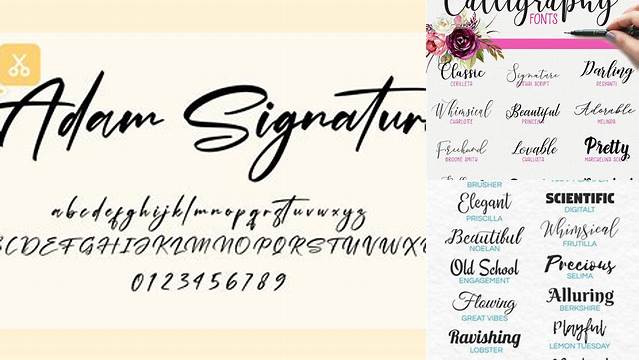
Calligraphy Styles: Generate Fonts With Ease!
H2 Understanding Calligraphy Styles
Calligraphy, guys, is more than just fancy writing; it's an art form with a rich history and diverse styles. Understanding these styles is the first step in appreciating and creating beautiful calligraphic works. Each style has its unique characteristics, from the slant of the letters to the thickness of the strokes. This section will explore some of the most popular and influential calligraphy styles. For example, think about Copperplate, known for its elegant, flowing lines, or Gothic, with its bold, dramatic strokes. Knowing the nuances of each style allows you to choose the perfect one for your project, whether it's wedding invitations, certificates, or artistic expressions. It also helps you understand the foundations upon which calligraphy fonts generators are built. Understanding the subtle differences between each style will make using a calligraphy font generator much easier to manage. Different calligraphy styles evoke different feelings and emotions. The formal, precise strokes of Engrosser's Script convey elegance and tradition, while the playful, irregular lines of brush lettering can feel modern and whimsical. Consider the message you want to convey when selecting a style. Are you aiming for classic sophistication, or do you want something more contemporary and approachable? Ultimately, the best style is the one that resonates with you and effectively communicates your intended message. The principles of calligraphy remain constant, but their application in different styles creates a wide spectrum of artistic possibilities. By studying these styles, you'll not only enhance your appreciation for the art form but also gain the skills to create your own unique variations. Experiment with different styles and techniques, and don't be afraid to break the rules and develop your personal flair.
H2 Exploring Copperplate Calligraphy
Copperplate calligraphy, a timeless and elegant script, is characterized by its graceful curves and consistent slant. Mastering this style requires precision and patience, but the results are truly rewarding. Copperplate originated in the 17th century and gained popularity due to its suitability for engraving on copper plates, hence the name. This style is particularly well-suited for formal occasions, such as wedding invitations, certificates, and diplomas. Its refined appearance exudes sophistication and tradition. When practicing Copperplate, pay close attention to the thin and thick strokes, which are achieved by varying the pressure on your pen. The downstrokes are thick, while the upstrokes are thin. Consistent slant and spacing are also crucial for achieving a polished look. Using high-quality ink and paper is essential for optimal results. Copperplate is not just about replicating the classic forms; it's about understanding the underlying principles of the script and applying them with your own personal touch. As you become more proficient, you can experiment with variations in letterforms and flourishes to create unique and personalized designs. So, whether you're a beginner or an experienced calligrapher, exploring Copperplate will undoubtedly enhance your skills and expand your artistic horizons. A calligraphy font generator can help by allowing quick previews of your desired word or phrase in a Copperplate style.
H2 Delving into Gothic Calligraphy
Gothic calligraphy, also known as Blackletter, is characterized by its bold, angular strokes and dramatic appearance. This style evokes a sense of history and grandeur, reminiscent of medieval manuscripts and illuminated texts. Gothic calligraphy requires a different approach than Copperplate, with a focus on precise angles and consistent letterforms. This style is also widely supported by calligraphy fonts generator. Understanding the historical context of Gothic calligraphy is essential for appreciating its unique aesthetic. It was the dominant script in Western Europe during the Middle Ages and was used for everything from religious texts to legal documents. When practicing Gothic calligraphy, pay close attention to the x-height, ascenders, and descenders. The x-height refers to the height of the main body of the letters, while the ascenders and descenders extend above and below the x-height, respectively. Maintaining consistent proportions is crucial for achieving a balanced and harmonious look. Experiment with different variations of Gothic script, such as Textura, Rotunda, and Fraktur, each with its own distinct characteristics. Gothic calligraphy is not just about replicating the historical forms; it's about interpreting them in your own unique way. As you become more proficient, you can incorporate decorative elements, such as illuminated initials and intricate borders, to create stunning and personalized designs. This will allow you to create designs that are not easily replicated by a calligraphy font generator.
H2 Mastering Italic Calligraphy
Italic calligraphy is a flowing and elegant script that is characterized by its slanted letterforms and rhythmic movement. Italic originated in the Renaissance as a more legible and efficient alternative to the formal scripts of the time. This style is particularly well-suited for everyday writing, as well as for more formal applications, such as invitations and announcements. When practicing Italic calligraphy, focus on maintaining a consistent slant and spacing between letters. The slant should be approximately 5 to 10 degrees, and the spacing should be even and harmonious. Use a broad-edged pen to create the characteristic thick and thin strokes of Italic. Experiment with different variations of Italic, such as Chancery Cursive and Humanist Italic, each with its own distinct characteristics. Italic calligraphy is not just about replicating the historical forms; it's about developing your own personal style and expression. As you become more proficient, you can incorporate flourishes and variations in letterforms to create unique and personalized designs. Imagine the possibilities that await you by mastering this style, even with a calligraphy font generator in your arsenal!
H2 Exploring Brush Lettering Techniques
Brush lettering is a modern and versatile style of calligraphy that utilizes brush pens to create expressive and dynamic letterforms. Unlike traditional calligraphy, which relies on precise pen angles and consistent strokes, brush lettering allows for greater freedom and creativity. This style is particularly popular for creating hand-lettered quotes, logos, and illustrations. When practicing brush lettering, experiment with different brush pens and techniques to achieve a variety of effects. Vary the pressure on your pen to create thick and thin strokes, and explore different lettering styles, such as bounce lettering and faux calligraphy. Brush lettering is not just about replicating the standard letterforms; it's about developing your own unique style and expression. As you become more proficient, you can incorporate color, shading, and other embellishments to create stunning and personalized designs. A calligraphy font generator can offer templates, but the true art is in the manual creation.
H2 Calligraphy Font Generators: An Overview
Calligraphy font generators are digital tools that allow you to create calligraphy-style text without the need for traditional pen and ink. These generators offer a wide range of fonts and styles, making it easy to create beautiful and unique designs. A calligraphy font generator simplifies the process, especially for those new to calligraphy. They can be used for a variety of purposes, such as creating invitations, logos, and social media graphics. While these tools can be incredibly useful, it's important to understand their limitations. They are not a substitute for learning traditional calligraphy techniques, but they can be a valuable resource for exploring different styles and experimenting with different designs. Many calligraphy font generators offer customization options, allowing you to adjust the size, color, and spacing of the letters. Some generators even allow you to upload your own fonts and create custom designs. When choosing a calligraphy font generator, consider your specific needs and preferences. Look for a generator that offers a wide range of fonts and styles, as well as customization options. Also, be sure to read reviews and compare prices before making a decision. With the right calligraphy font generator, you can create stunning and personalized designs in minutes.
H2 Benefits of Using a Calligraphy Font Generator
Using a calligraphy font generator offers numerous benefits, especially for those who are new to calligraphy or who need to create designs quickly. One of the main benefits is the ease of use. Calligraphy font generators are typically very user-friendly and require no prior experience. Simply type in your text, choose a font, and customize the design to your liking. Another benefit is the speed. With a calligraphy font generator, you can create beautiful and unique designs in minutes, saving you time and effort. Calligraphy font generators also offer a wide range of fonts and styles, giving you plenty of options to choose from. You can experiment with different styles and find the perfect one for your project. Additionally, many calligraphy font generators offer customization options, allowing you to adjust the size, color, and spacing of the letters. Ultimately, a calligraphy font generator can be a valuable tool for anyone who wants to create calligraphy-style designs without the time commitment. Keep in mind that the quality of your output is directly related to the calligraphy font generator you choose, so do your research. The benefits of quick creation and variety of styles make these generators an excellent addition to any designer's toolbox.
H2 Limitations of Calligraphy Font Generators
While calligraphy font generators offer numerous benefits, it's important to be aware of their limitations. One of the main limitations is the lack of authenticity. Calligraphy font generators create digital representations of calligraphy, but they cannot replicate the nuances and imperfections of hand-lettered calligraphy. Another limitation is the lack of originality. Calligraphy font generators offer a limited number of fonts and styles, which means that your designs may look similar to those created by others. Additionally, calligraphy font generators may not be suitable for all projects. For example, if you need to create a highly personalized or unique design, you may be better off hiring a professional calligrapher. Calligraphy font generators are not a substitute for learning traditional calligraphy techniques. While they can be a valuable tool for exploring different styles and experimenting with different designs, they cannot teach you the fundamentals of calligraphy. Also be aware that most calligraphy font generators do not allow for truly unique styles. What you get is generally a pre-packaged version of a font. However, the speed and simplicity of a calligraphy font generator still make it a valuable tool for many.
H2 Choosing the Right Calligraphy Font Generator
Choosing the right calligraphy font generator depends on your specific needs and preferences. Consider the following factors when making your decision: Font selection: Look for a generator that offers a wide range of fonts and styles. Customization options: Choose a generator that allows you to adjust the size, color, and spacing of the letters. Ease of use: Select a generator that is user-friendly and easy to navigate. Price: Compare prices and choose a generator that fits your budget. Reviews: Read reviews and see what other users have to say about the generator. Support: Make sure the generator offers good customer support in case you have any questions or problems. By considering these factors, you can choose the right calligraphy font generator for your needs and create stunning and personalized designs. Some calligraphy font generators are focused on mimicking specific styles, so if you have a particular look in mind, that can help narrow your search. The most important part is to find a calligraphy font generator that fits your skill level.
H2 Step-by-Step Guide to Using a Calligraphy Font Generator
H2 Calligraphy Tools Beyond the Digital: Exploring Traditional Methods
While digital calligraphy font generators offer convenience and speed, traditional calligraphy methods provide a unique, tactile experience that fosters creativity and skill. Exploring these methods can enhance your appreciation for the art form. Here are some traditional calligraphy tools and techniques: Dip Pens and Inks: Using dip pens with various nibs allows you to control the thickness and flow of your lines. Experimenting with different inks can add depth and character to your work. Brushes: Brush calligraphy offers a dynamic and expressive approach to lettering. Different brush types and techniques can create a wide range of effects. Paper and Surfaces: The type of paper you use can significantly impact the look and feel of your calligraphy. Experiment with different textures and weights. Practice and Patience: Mastering traditional calligraphy requires dedication and practice. Embrace the process and enjoy the journey of learning. Understanding the fundamentals of traditional methods is helpful, even when working with a calligraphy font generator. By understanding these principles, you can better appreciate what a calligraphy font generator is doing